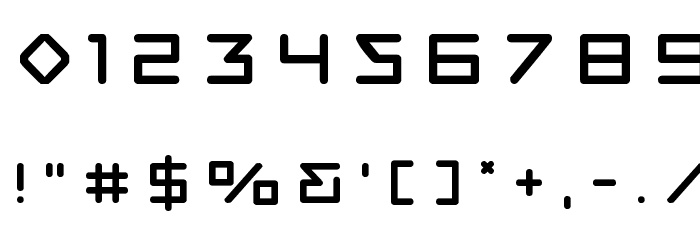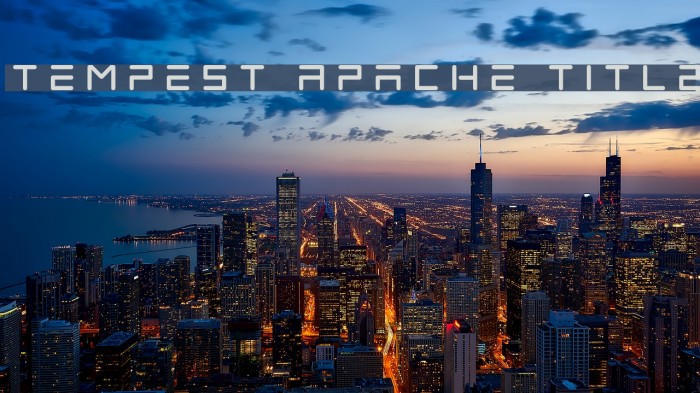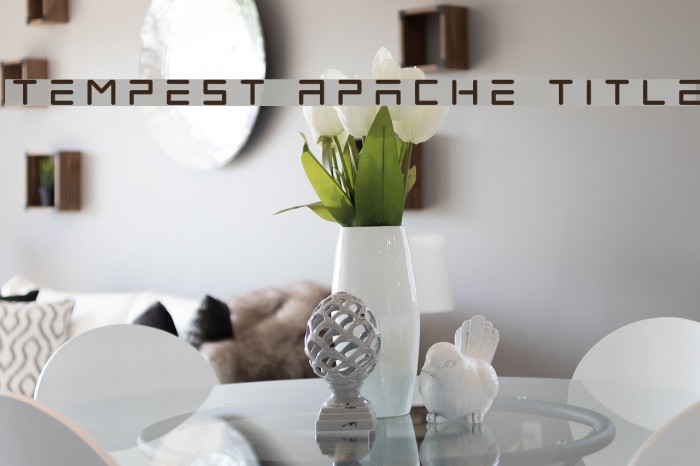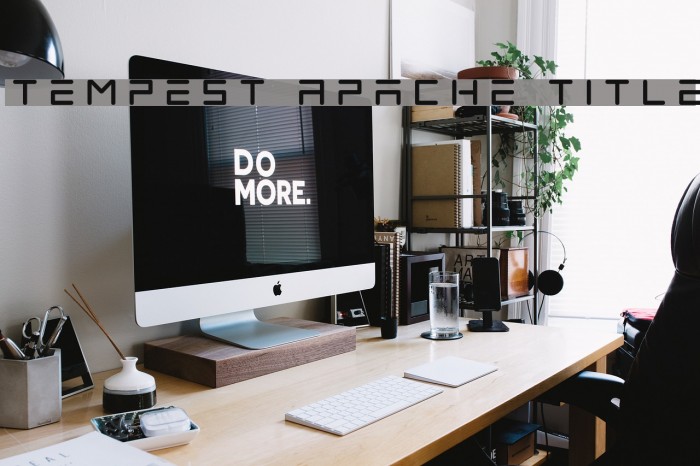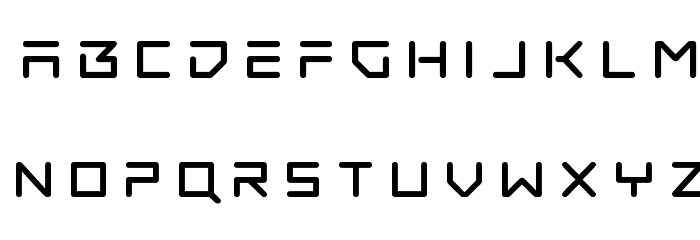
Tempest Apache Title Font
Tempest Apache Title Description
This font features a futuristic and geometric design, characterized by its angular and sharp edges. The uppercase and lowercase letters maintain a consistent structure, with a uniform width that gives it a monospaced appearance. The numerals are distinct and align well with the overall style, enhancing readability. Special characters are crafted with the same angular precision, making them stand out. The font's clean lines and modern aesthetic make it suitable for digital and print media, where a contemporary and tech-inspired look is desired.
A futuristic, geometric font with angular edges and a monospaced appearance from Uncategorized fonts.
- Proposed Projects: Ideal for technology branding, sci-fi themed projects, digital interfaces, and modern advertising.